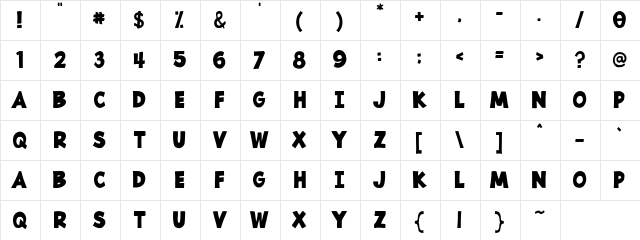
Sayfull Regular Free Font
Sayfull Regular
Foundry: Polah
Designer: Polah
Design Context for Sayfull
Sayfull is a composed and adaptable typeface that performs quietly and consistently across a wide range of design contexts.
Pro Tip: Use Sayfull in both headline and body roles to test its range before committing to a single application.